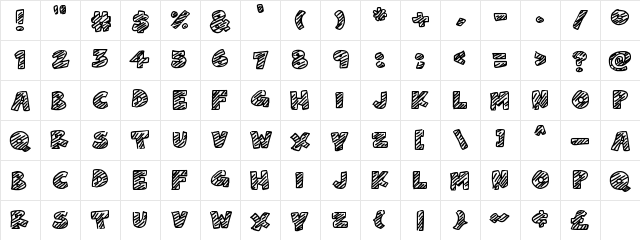
Chalk Dash Regular
Design Context for Chalk Dash Typeface
Chalk Dash is a composed and adaptable typeface that performs quietly and consistently across a wide range of design contexts.